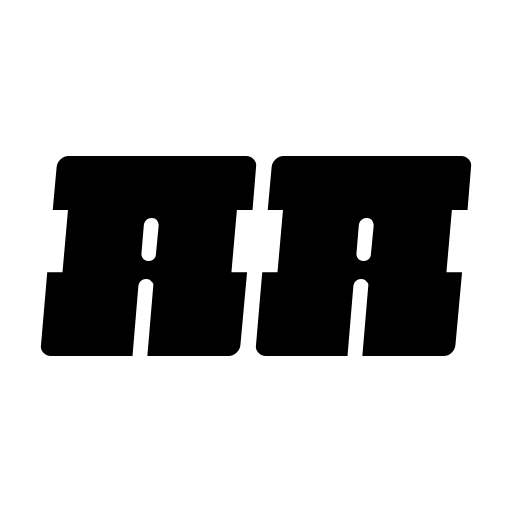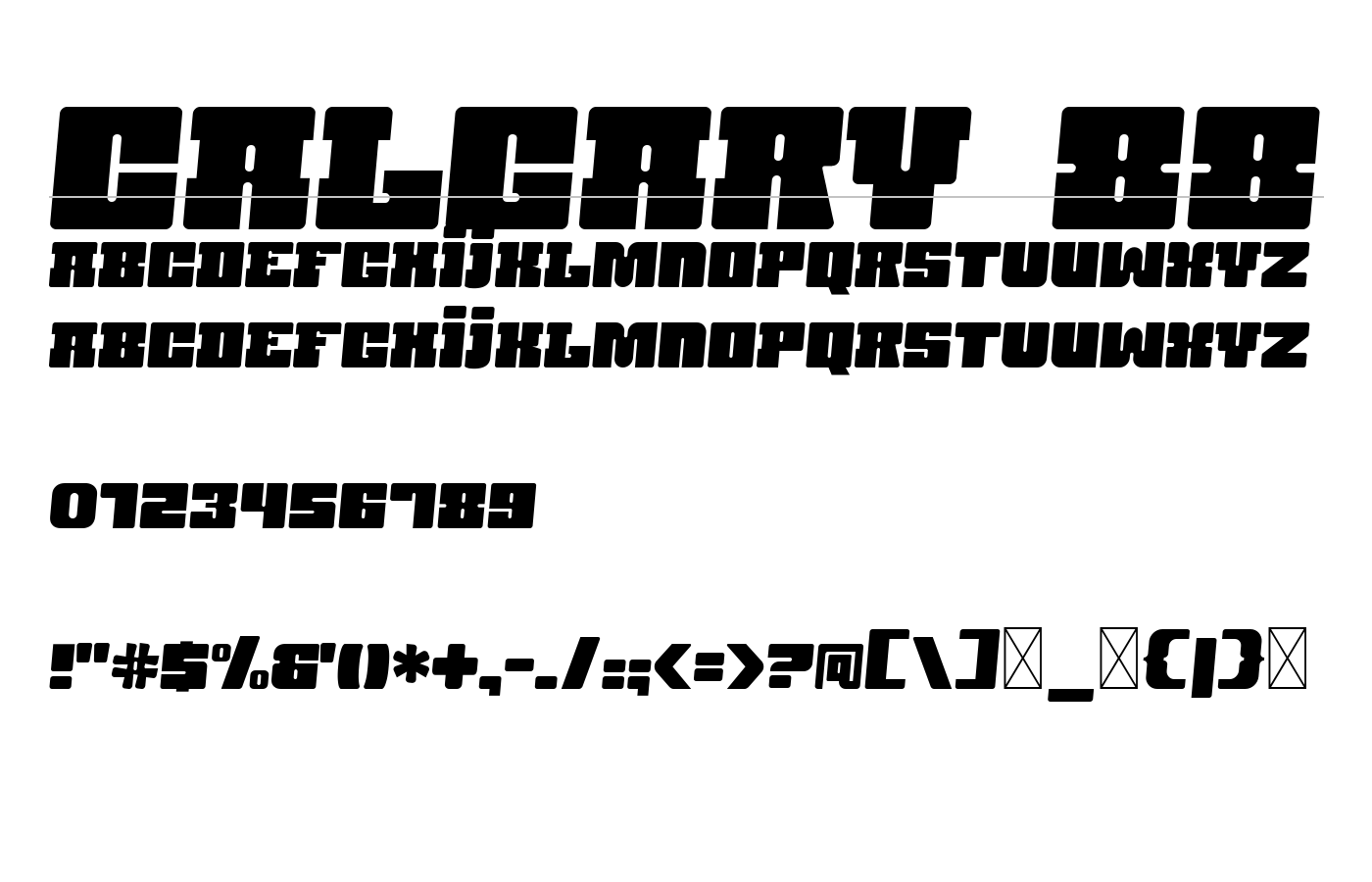
Calgary 88 is a bold, condensed sans serif font with a strong, geometric structure and a dynamic italic slant that gives it a sporty, energetic feel. Its thick, blocky letterforms with rounded corners and uniform stroke weight make it ideal for headlines, logos, and packaging where a powerful and modern impact is needed. This font works especially well for designs that aim to communicate strength, speed, and a contemporary vibe.
Calgary 88 Font
About Calgary 88 Font
| Font family | Calgary 88 Font |
| Designer | Alfred Trujillo |